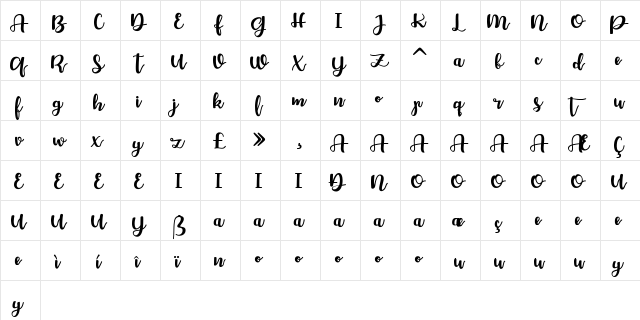
Chellion Regular
| Foundry | Letterbeary |
| Designer | DianHniff |
Design Context for Chellion Typeface
Chellion is a composed and adaptable typeface that performs quietly and consistently across a wide range of design contexts.